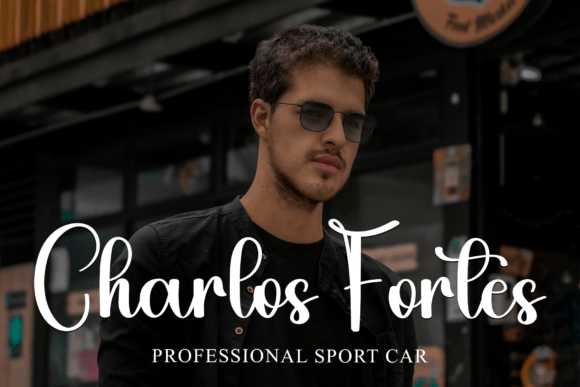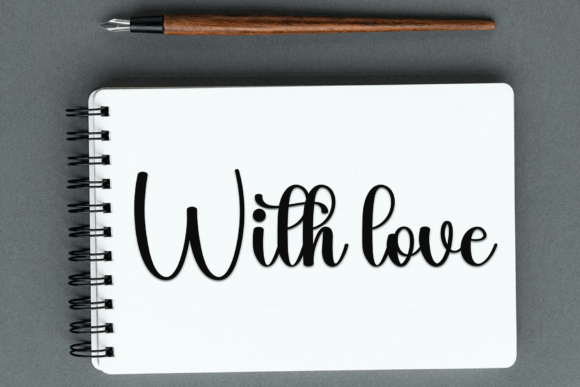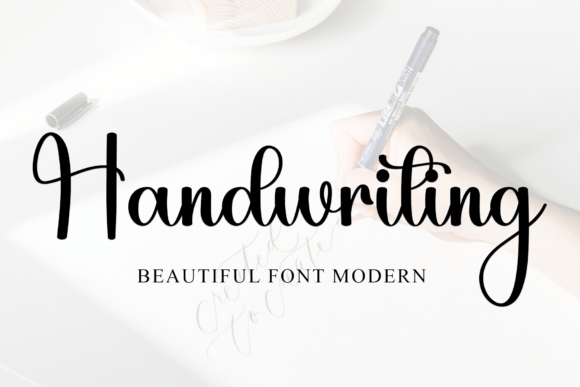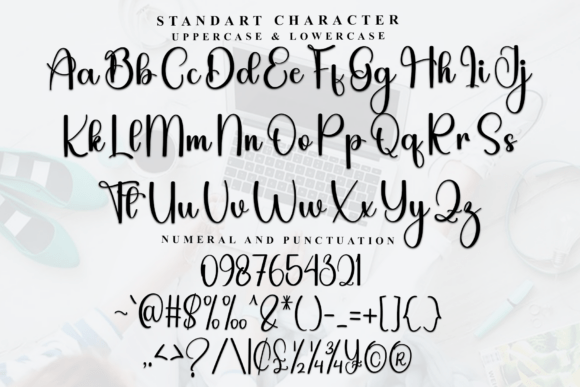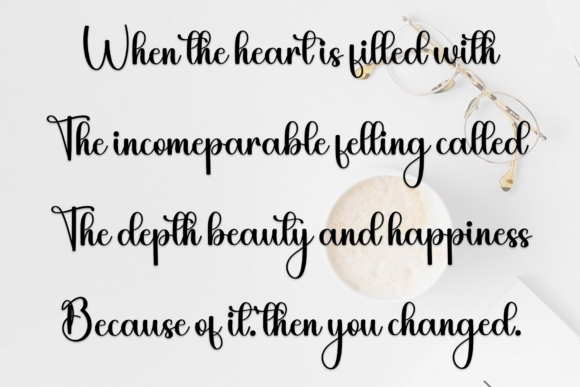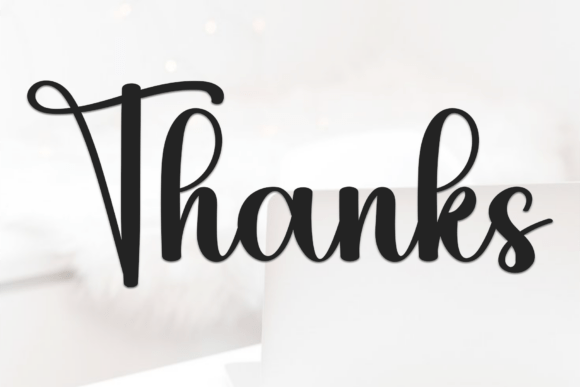
Getting Cozy with the Perfect Font
There’s something special about sipping a warm cup of coffee on a lazy Sunday morning, surrounded by the aroma of freshly baked treats. It’s a moment of pure comfort and creativity, where ideas start to flow and inspiration strikes. For designers, this feeling can be captured in the perfect font – one that exudes warmth and friendliness, inviting users to engage and connect.
Enter the Baking Font, a delightful typographic creation that embodies the essence of a cozy bakery. With its round, playful strokes and charming hand-drawn aesthetic, this font is perfect for personal projects, invitations, and social media graphics. Its relaxed and approachable feel makes it a valuable asset for designers looking to add a touch of warmth to their designs.
Whether you’re working on a project that requires a friendly tone or simply want to add some personality to your designs, the Baking Font is sure to deliver. Its standard PUA Encoded glyphs ensure seamless compatibility across various application engines, making it a convenient choice for designers of all levels.
Baking Font Key Features
- Font Family: Baking Font offers a unique set of fonts specifically designed for baking-related content, including font styles such as Baking, Baking Script, and Baking Bold.
- Unique Characteristics: The font family features a distinctive, hand-drawn design that evokes a sense of warmth and nostalgia, perfect for baking-related content that requires a personal touch.
Baking Font Review
Overall, I found “Baking Font” to be a unique and charming addition to any bakery or cooking-themed design. ✨ The font’s whimsical feel and hand-drawn look make it perfect for adding a personal touch to menus, labels, and packaging. ✨ The font is also highly customizable, allowing you to adjust the size, color, and spacing to fit your design needs.
One of the standout features of “Baking Font” is its extensive character set, which includes a wide range of punctuation marks, numbers, and special characters. This makes it easy to use the font for everyday text, from ingredient lists to recipe titles. ✨ Additionally, the font is fully editable in most design software, making it a great choice for designers who value flexibility.
- ⚠️ Limited language support: “Baking Font” is currently only available in a limited number of languages, which may be a concern for designers working on international projects.
- ⚠️ Some characters may require manual adjustment: While the font’s character set is extensive, some characters may require manual adjustment to ensure proper spacing and alignment.
In terms of overall impression, I found “Baking Font” to be a delightful and engaging addition to any design. While it may have some limitations, the font’s unique charm and customizability make it a great choice for designers looking to add a personal touch to their work.
For the best results, use the Baking Font in conjunction with a clean and simple design.
Use the Baking Font to add a personal touch to your designs, such as adding a custom logo or branding element.
The Baking Font is perfect for:
Cookbooks and recipe cards
Baking and food blogs